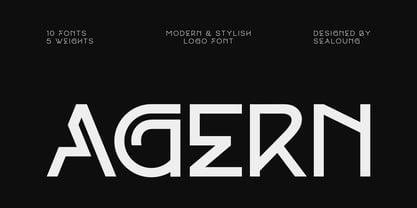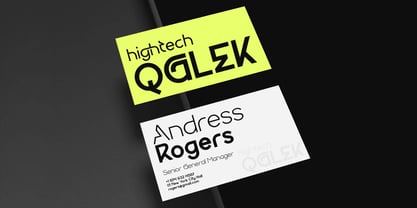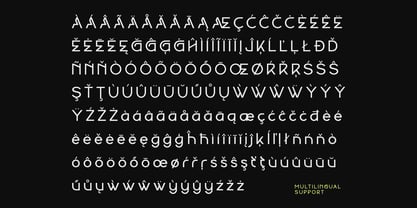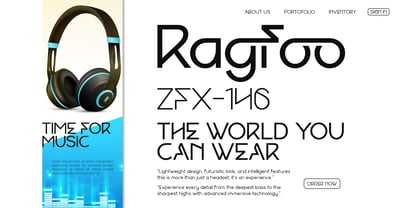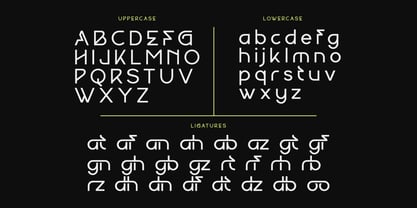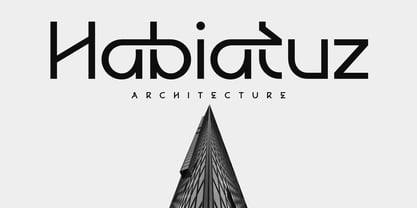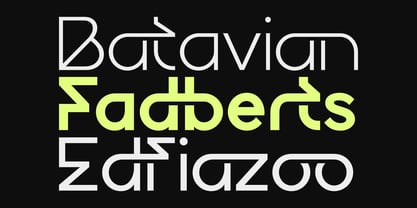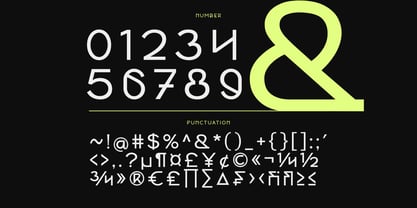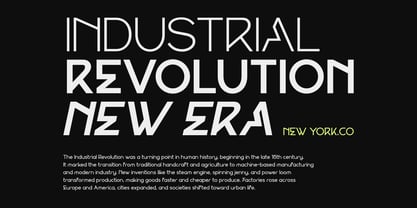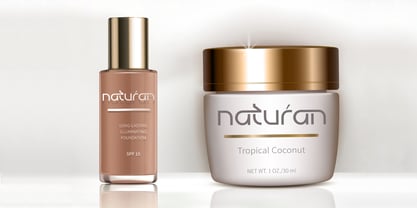
Agern
by Sealoung
The Agern Font Family was designed by Saiful Anwar and published by Sealoung. Agern contains 10 styles and family package options. More about this family
Agern – Modern Stylish Logo Font by Sealoung
Agern is a refined sans-serif typeface created to elevate professional branding and corporate identity. With a complete range of weights from Thin to Bold, it blends sleek geometry with versatile usability, making it a perfect choice for logos, brand identities, and contemporary design projects.
Features: Uppercase, Lowercase, Numerals, Punctuation, Multilingual Support & Ligatures.
Multilingual support includes: Afrikaans, Albanian, Asu, Basque, Bemba, Bena, Breton, Catalan, Chiga, Cornish, Danish, Dutch, English, Estonian, Filipino, Finnish, French, Friulian, Galician, German, Gusii, Indonesian, Irish, Italian, Kabuverdianu, Kalenjin, Kinyarwanda, Luo, Luxembourgish, Luyia, Machame, Makhuwa-Meetto, Makonde, Malagasy, Manx, Morisyen, North Ndebele, Norwegian Bokmål, Norwegian Nynorsk, Nyankole, Oromo, Portuguese, Quechua, Romansh, Rombo, Rundi, Rwa, Samburu, Sango, Sangu, Scottish Gaelic, Sena, Shambala, Shona, Soga, Somali, Spanish, Swahili, Swedish, Swiss German, Taita, Teso, Uzbek (Latin), Volapük, Vunjo, Zulu.
Designers: Saiful Anwar
Foundry: Sealoung